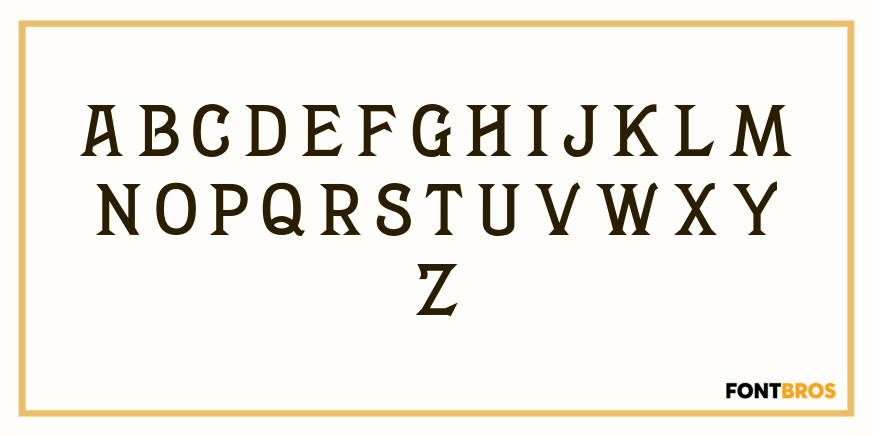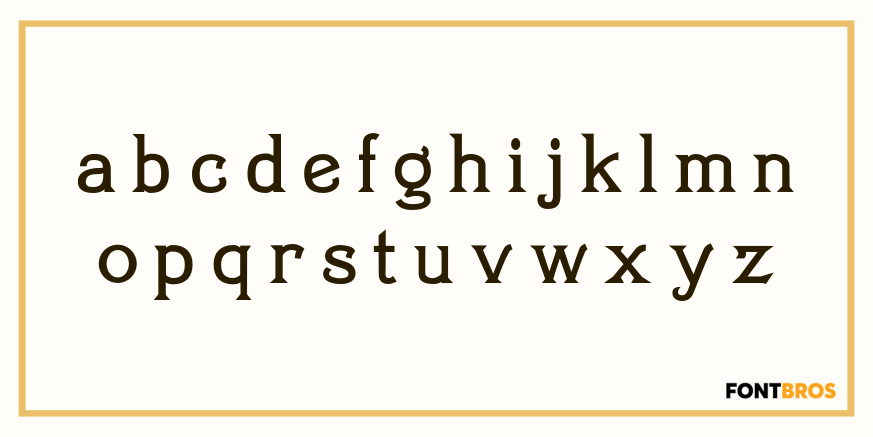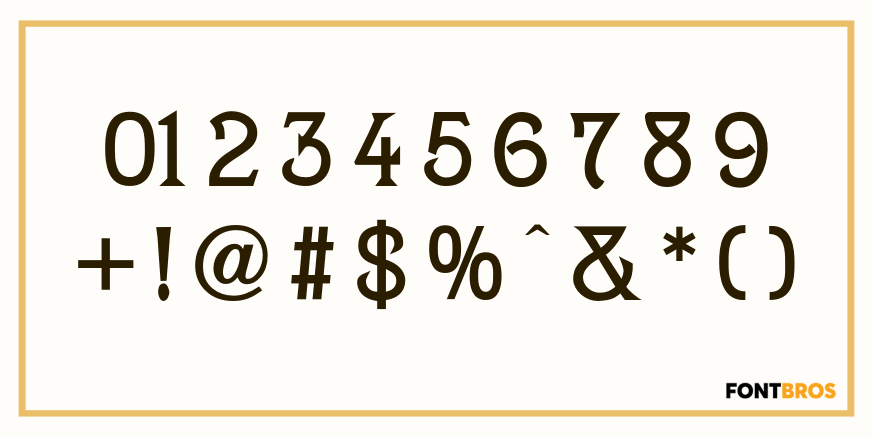
Penny Arcade
A popular caps-only type of late Victorian times was called Mural, brought out by Boston Type Foundry in 1890. We always liked it, drew a lowercase for it, and then strengthened it by adding a bit of weight.
It now has a nice, understated retro look for paragraphs of copy.